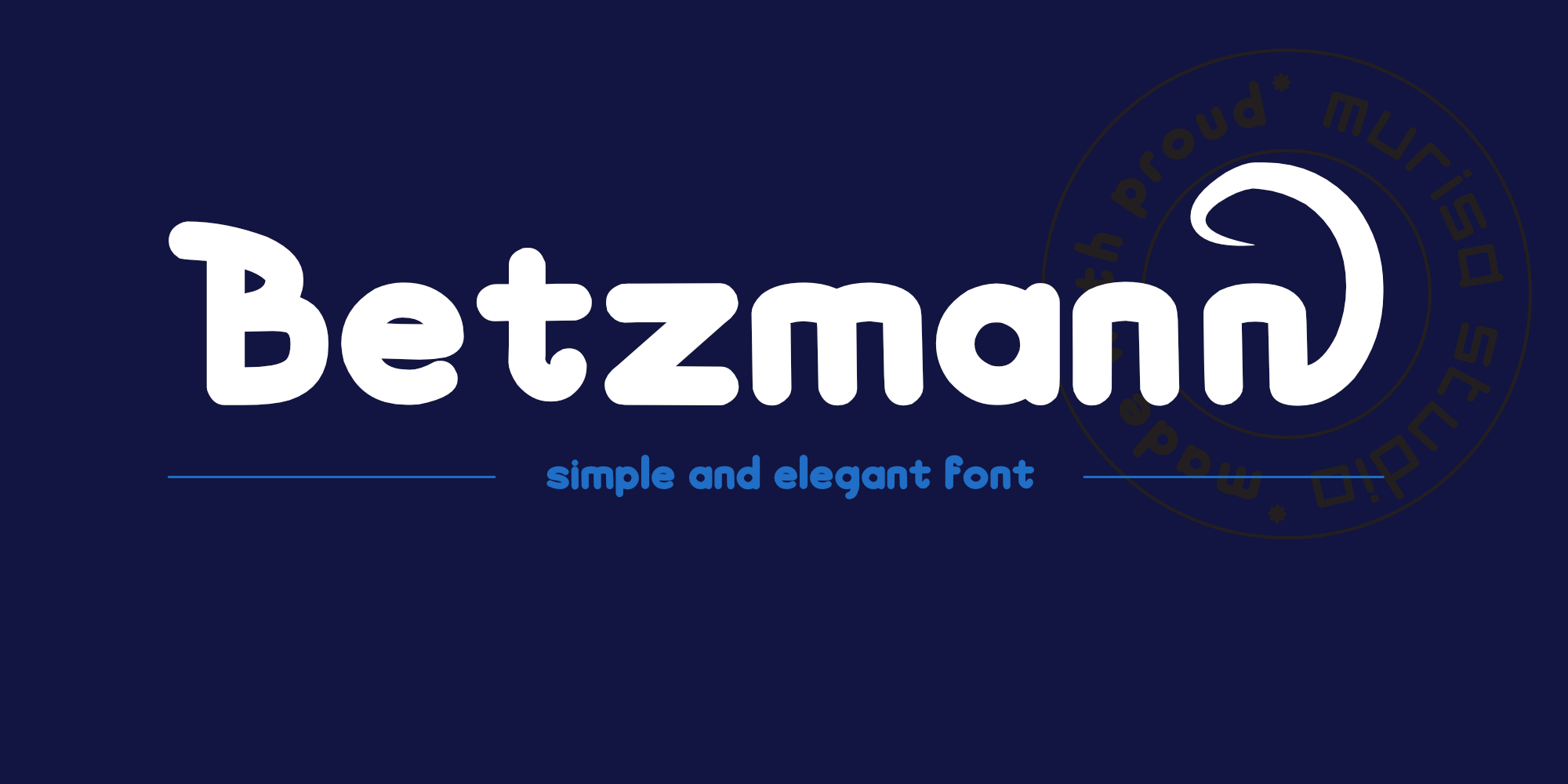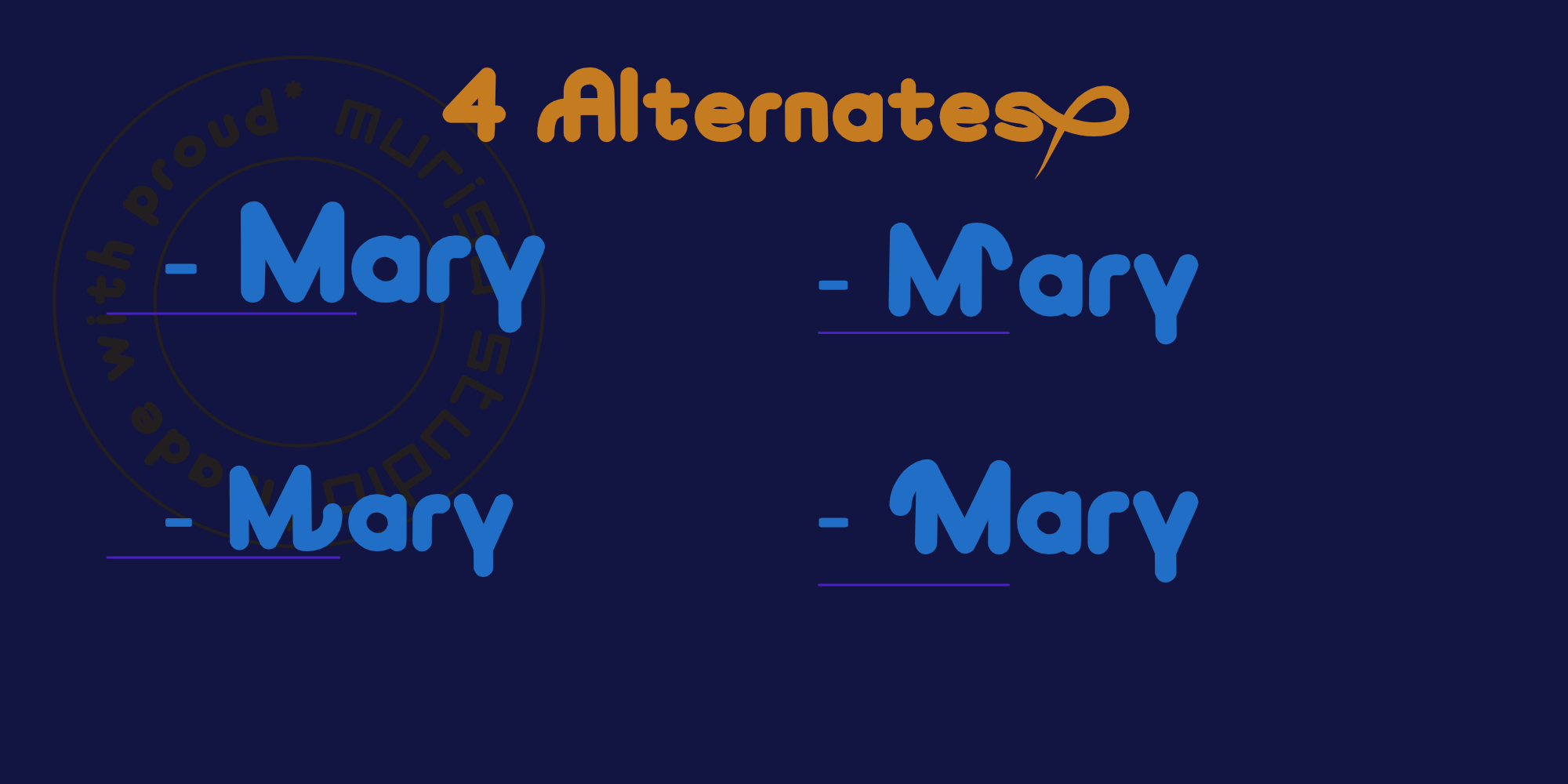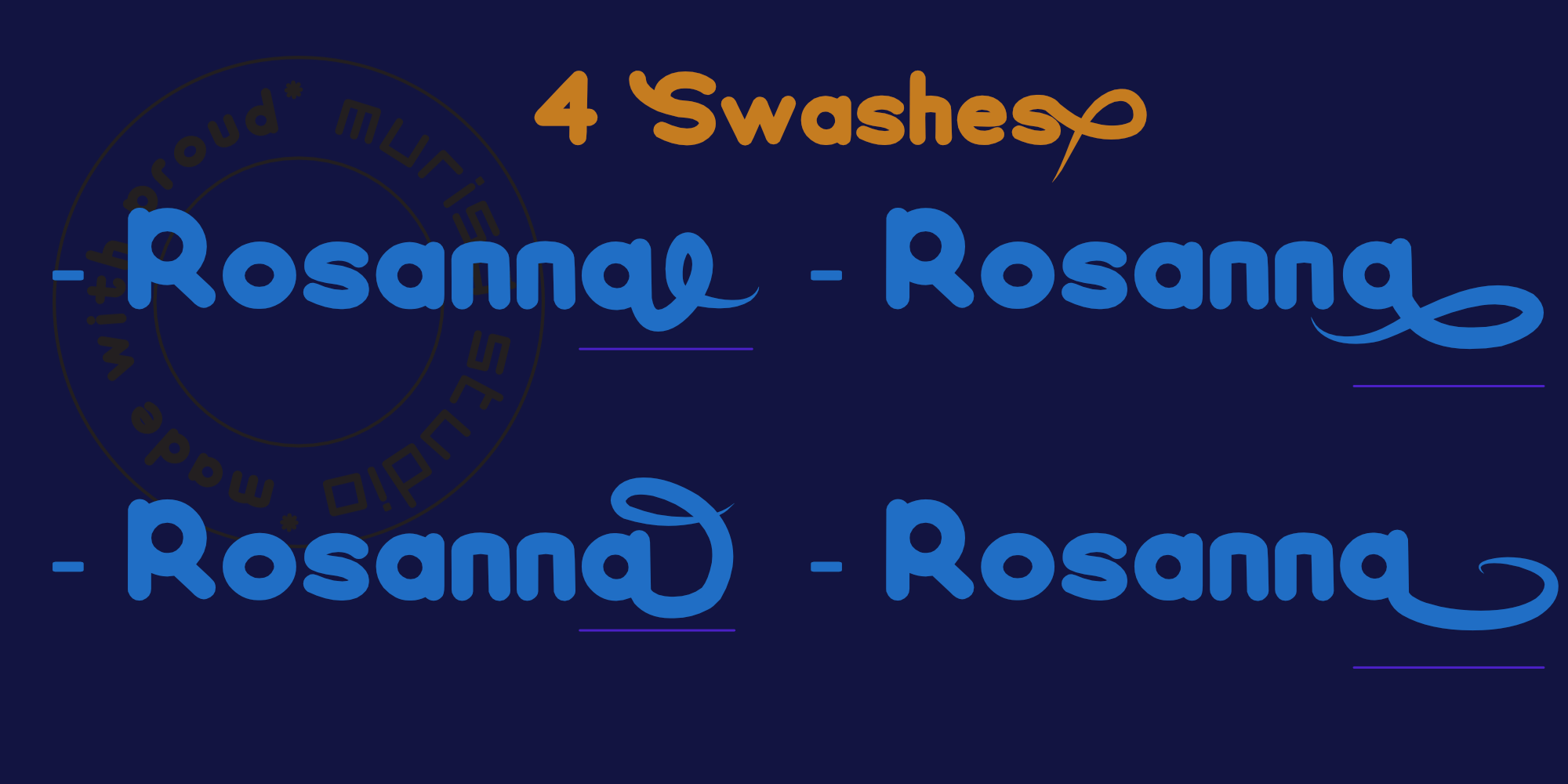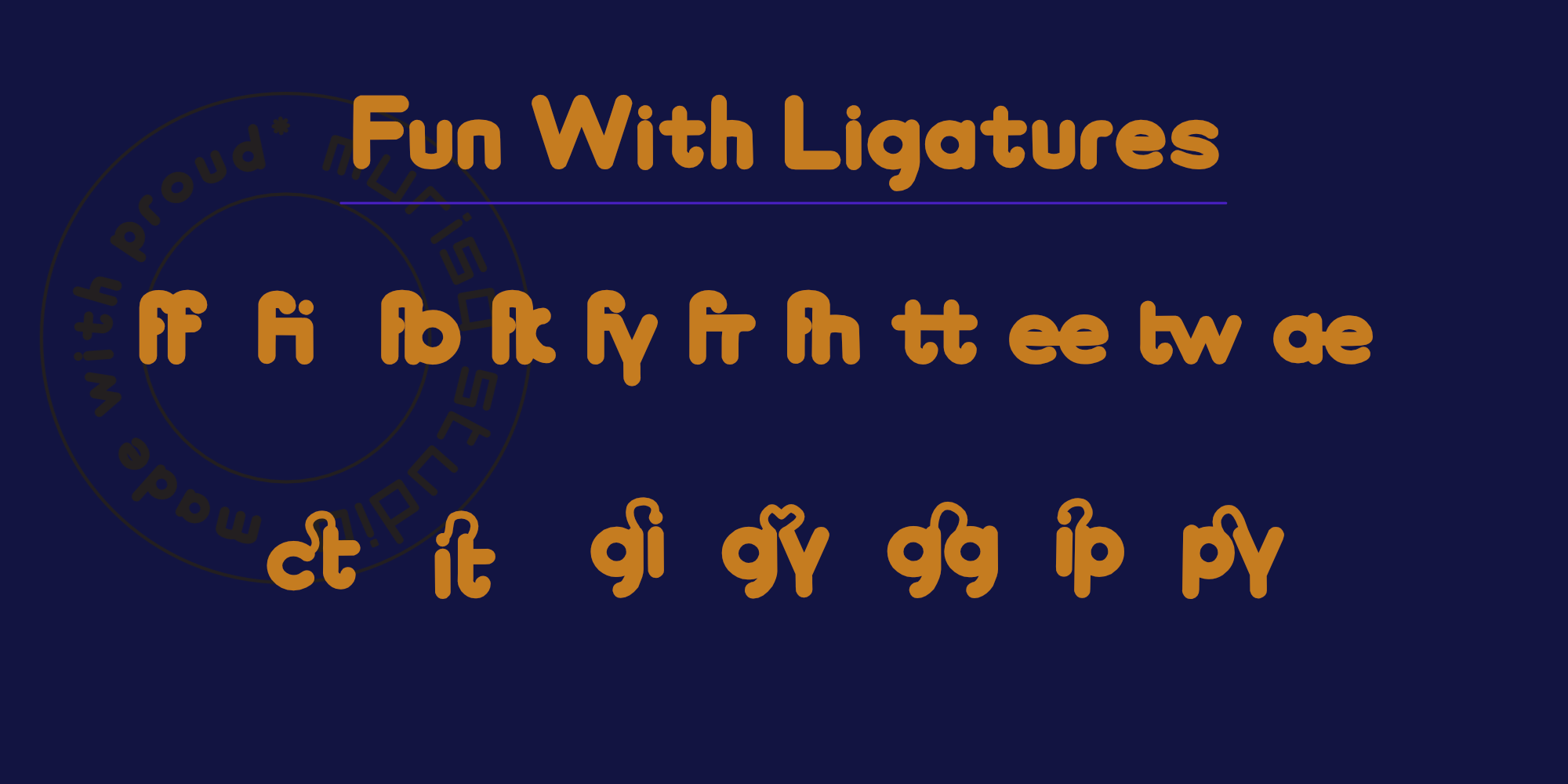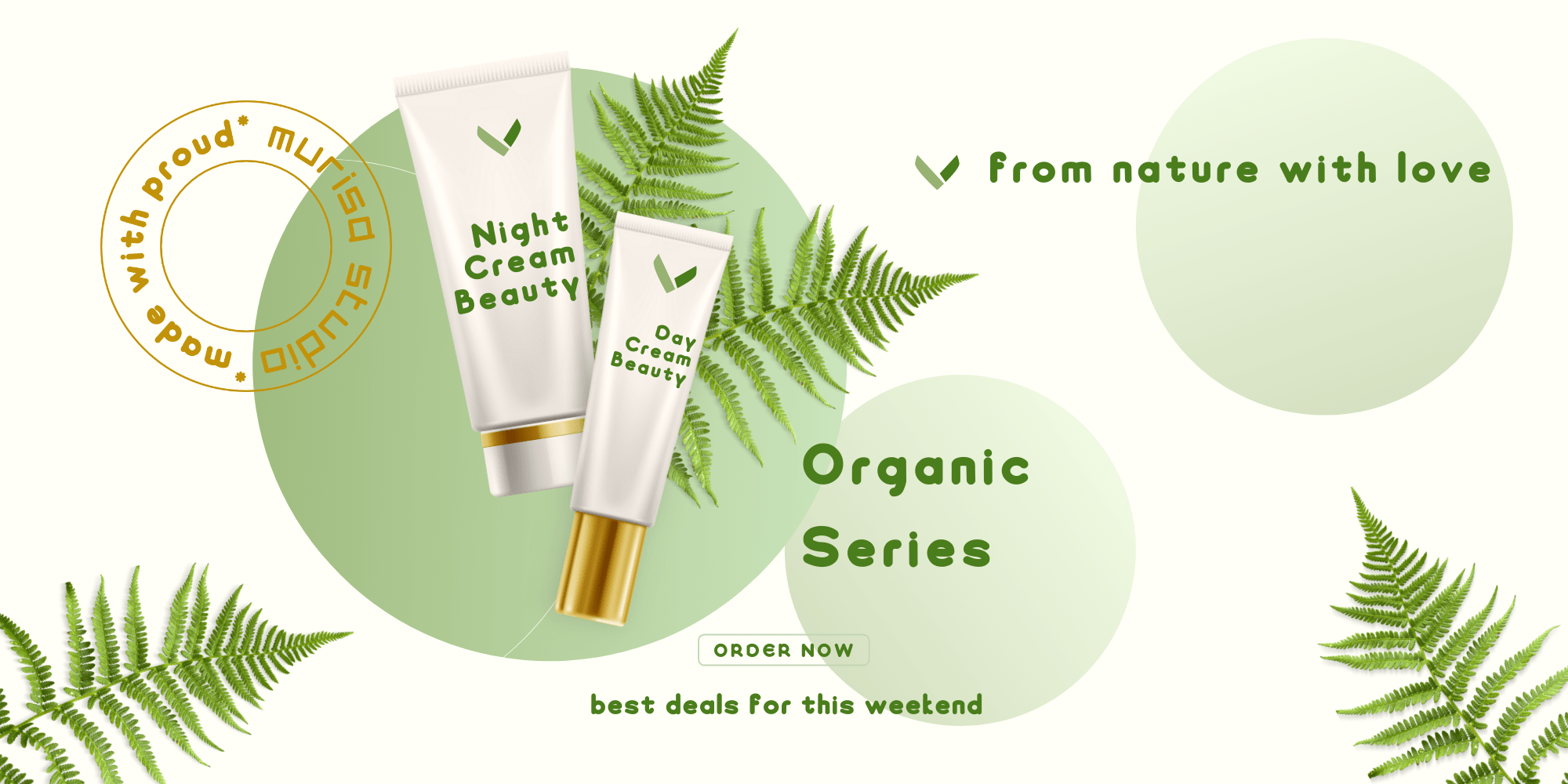
Murisa Betzmann Font
Murisa Betzmann Display Font
This is a very special font. Betzmann is an innovative style in typography. We provide 4 alternates for each uppercase and 4 swashes for each lowercase. You are also given various ligatures for variations of your writing. Multiple alternates, multiple swashes, multiple ligatures, a brilliant work of art. Get it right now. This font is PUA encoded which means you can access all of the amazing glyphs and ligatures with ease!